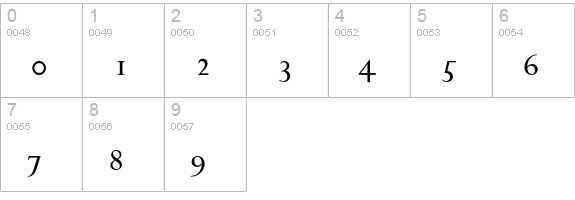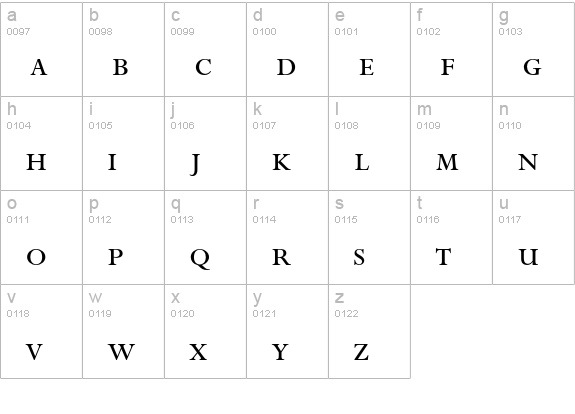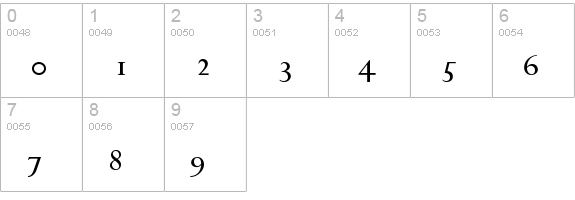
Perpetua Small Caps & Oldstyle Figures Font Details
Perpetua Small Caps & Oldstyle Figures is a charming and versatile font that seamlessly blends classic elegance with a contemporary flair. Designed for those who appreciate the finer details, this font exudes a timeless sophistication that is perfect for a wide range of design projects. With its delicate small caps and beautifully crafted oldstyle figures, Perpetua combines the best of both worlds, offering a unique typographic experience. The small caps add a touch of refinement and formality, while the oldstyle figures bring a sense of warmth and character to your text. What sets Perpetua apart is not only its aesthetic appeal but also its accessibility. The font is freely available to download at FontsMarket.com, making it an excellent choice for designers, artists, and typographers who are looking for a high-quality, professionally designed font without the hefty price tag. Whether you're working on a logo, branding materials, invitations, or editorial designs, Perpetua Small Caps & Oldstyle Figures is a versatile typeface that will elevate your work to new heights. Its timeless beauty and unique features make it a standout choice for any project, adding a touch of sophistication and elegance that is sure to captivate your audience. So, why settle for ordinary when you can have extraordinary? Download Perpetua Small Caps & Oldstyle Figures today and let your creativity soar.